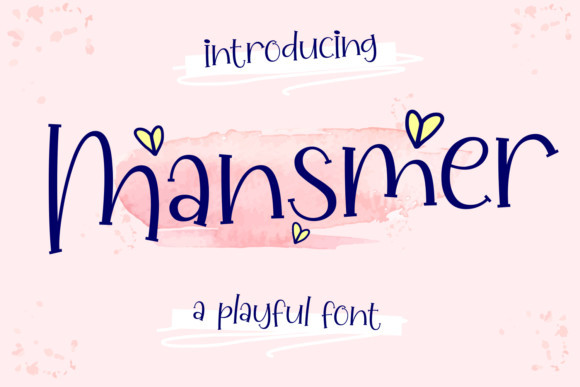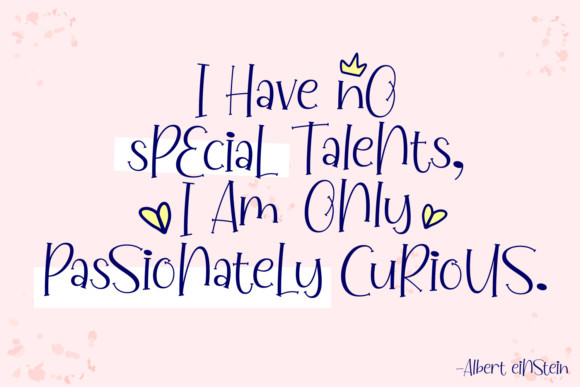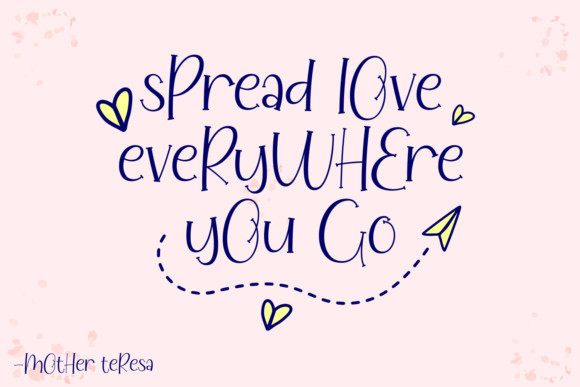
Mansmer Font
Mansmer is cute and authentic, but also elegant. This whimsical display font has a wide range of applications ranging from headlines to arts & crafts, and is guaranteed to add a playful touch to your next design.
This font is PUA encoded which means you can access all of the gorgeous glyphs and swashes with ease! It also features a wealth of special features including alternate glyphs and ligatures.